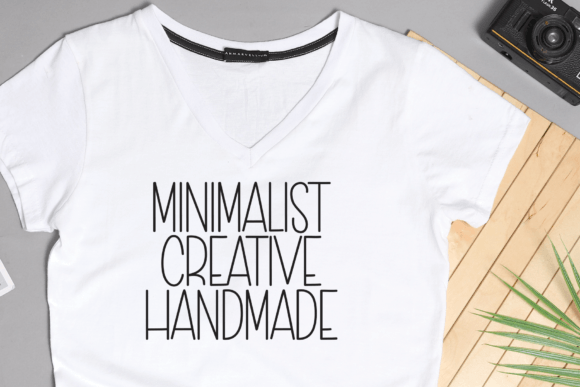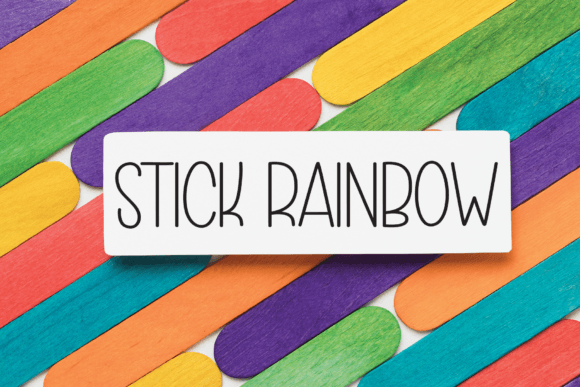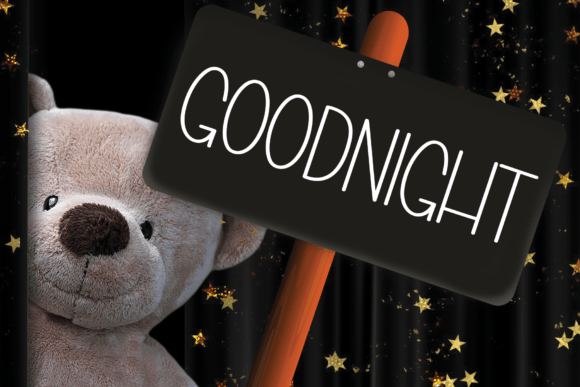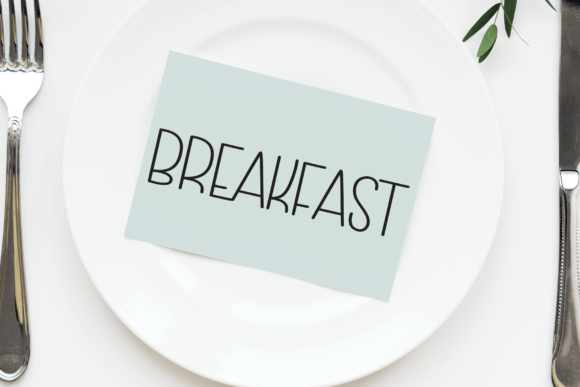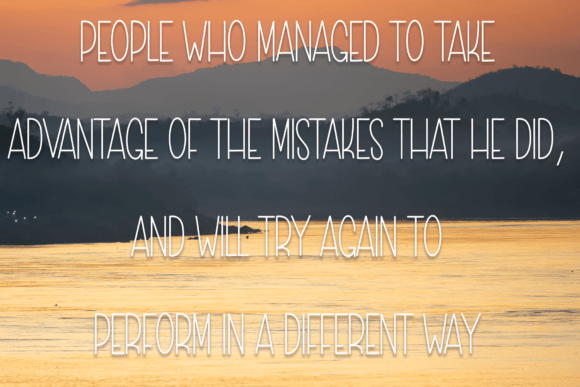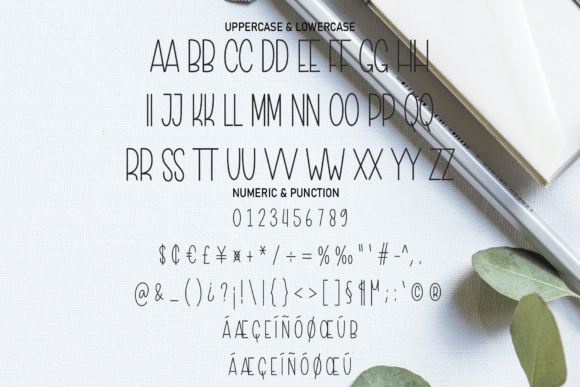
Introduction to Simple Work Font
Simple Work’s latest style letters are perfect for wall displays, wedding invitations, social media post logos, advertisements, product packaging, product designs, labels, photography, watermarks, invitations, stationery, and any project that requires sleek typography.
Key Features of Simple Work Font
Why Choose Simple Work Font?
Simple Work Font offers exceptional quality and versatility, making it a valuable addition to your design toolkit. Whether you’re creating for personal projects or commercial use, Simple Work Font delivers professional results.